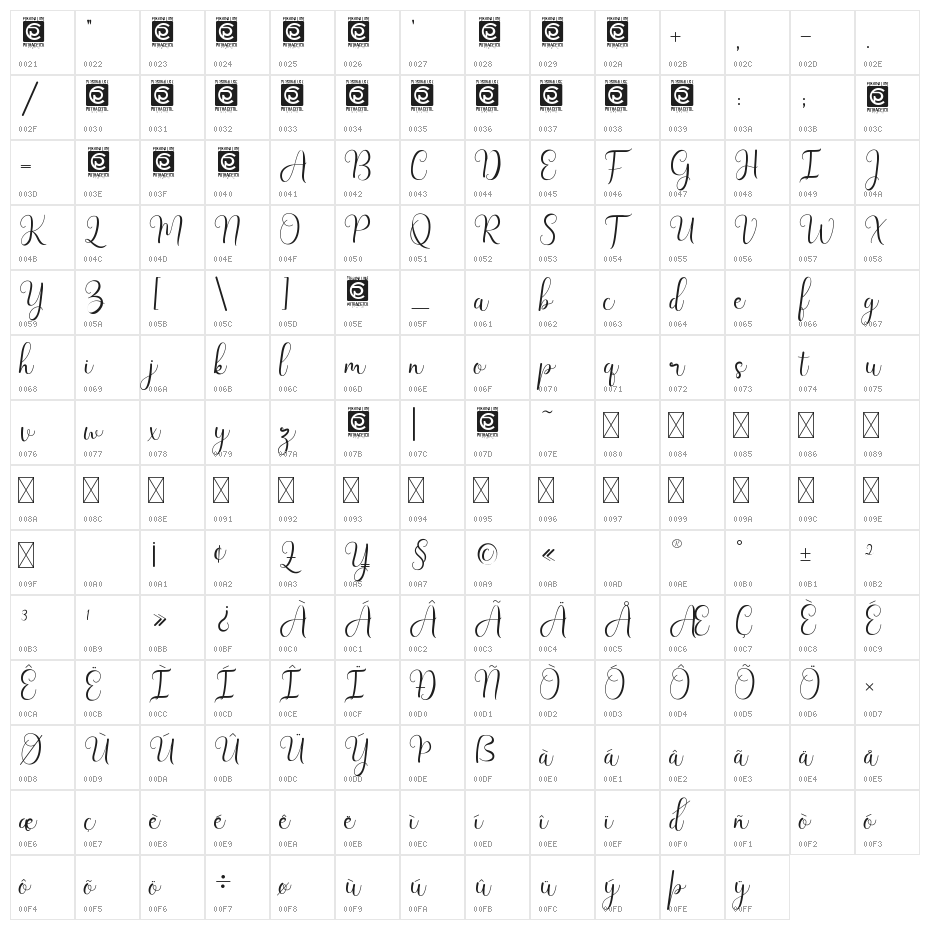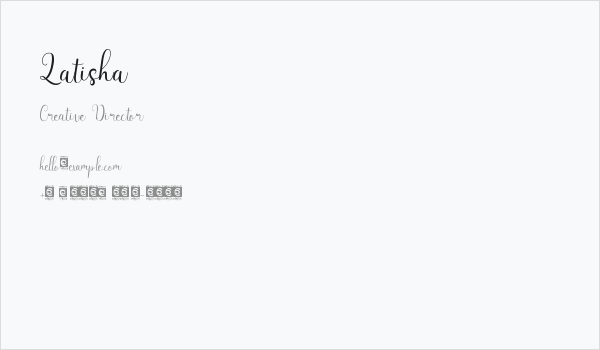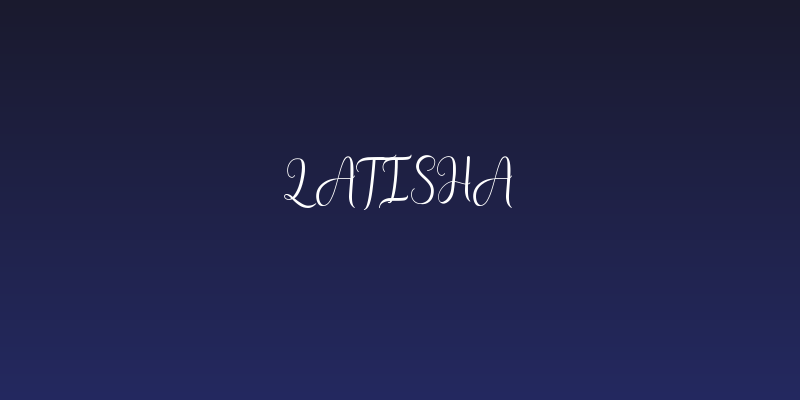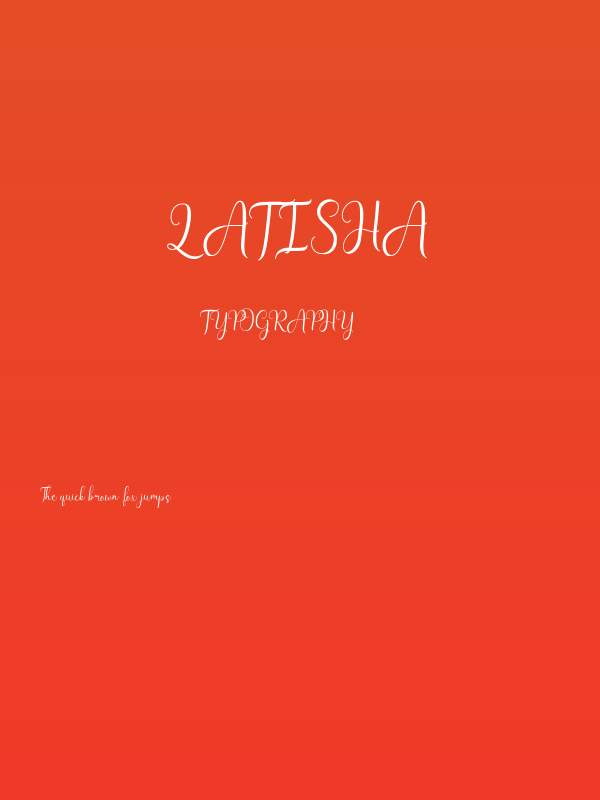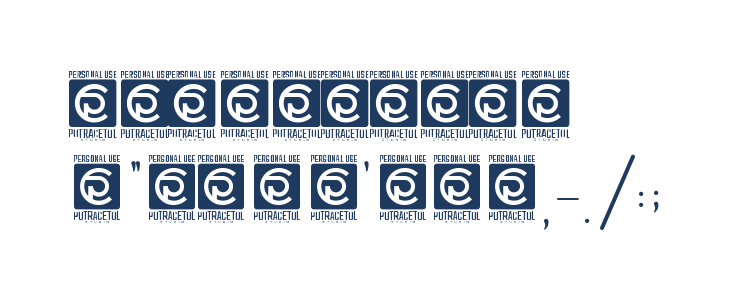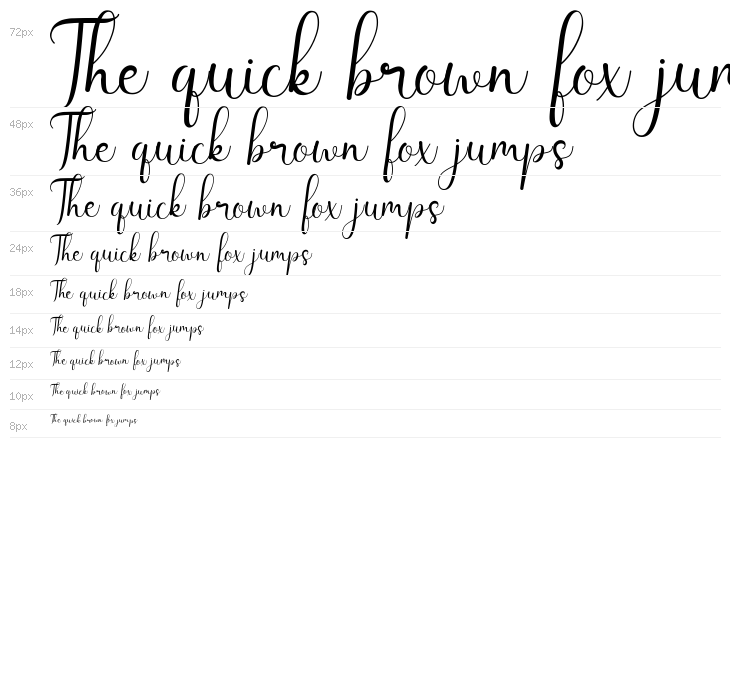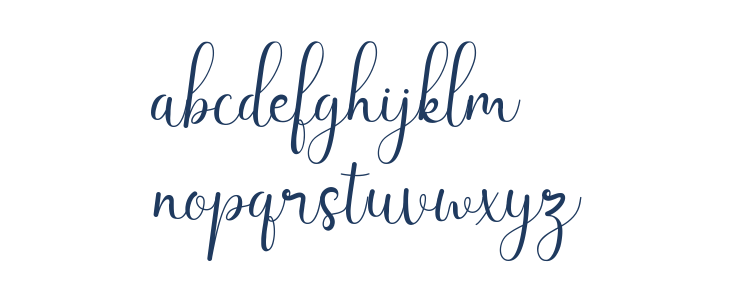
Latisha Font
Latisha Description
This elegant script font features flowing, interconnected letters with a graceful and sophisticated appearance. The uppercase letters are ornate and slightly larger, giving them a commanding presence, while the lowercase letters maintain a consistent flow with delicate curves. The font's design is reminiscent of traditional calligraphy, with a modern twist that makes it versatile for various design projects. Its smooth lines and balanced proportions create a harmonious look, making it suitable for both formal and creative applications. The font includes a full set of uppercase and lowercase letters, numerals, and a selection of special characters, providing flexibility for diverse typographic needs.
| Proposed Projects | Ideal for wedding invitations, elegant branding, greeting cards, and decorative projects. |